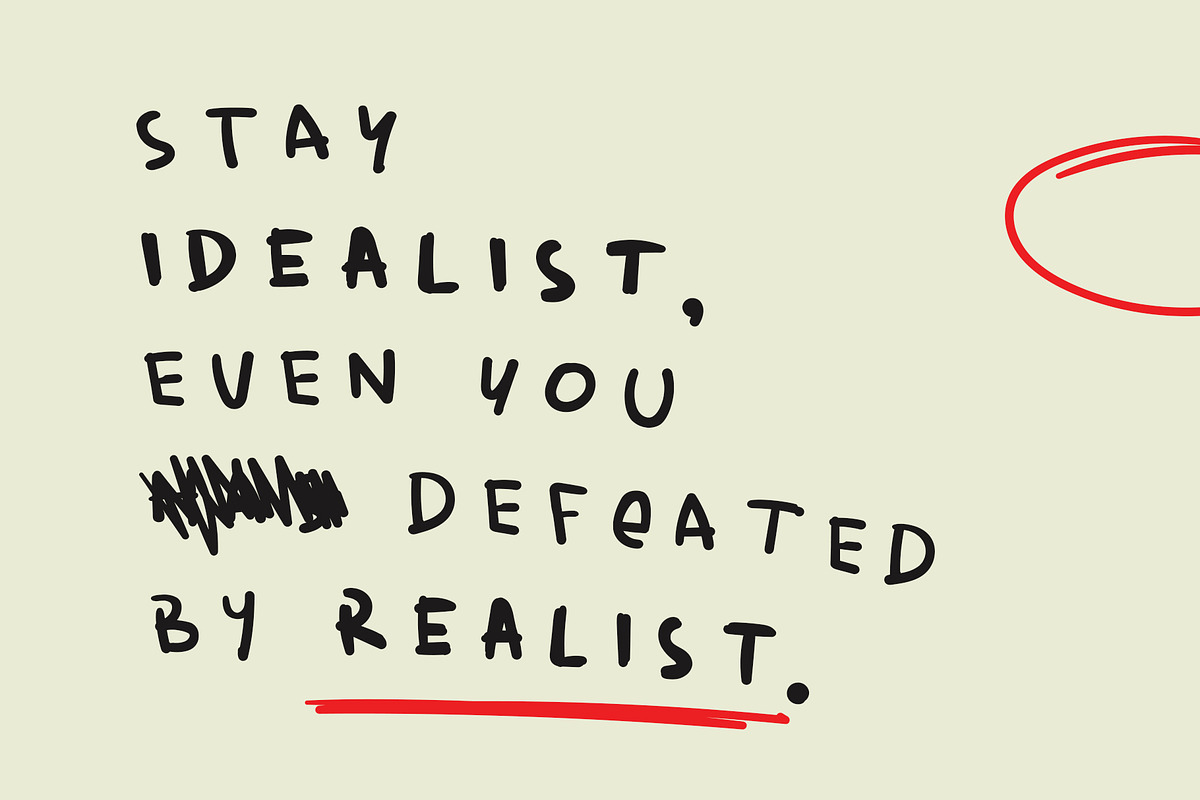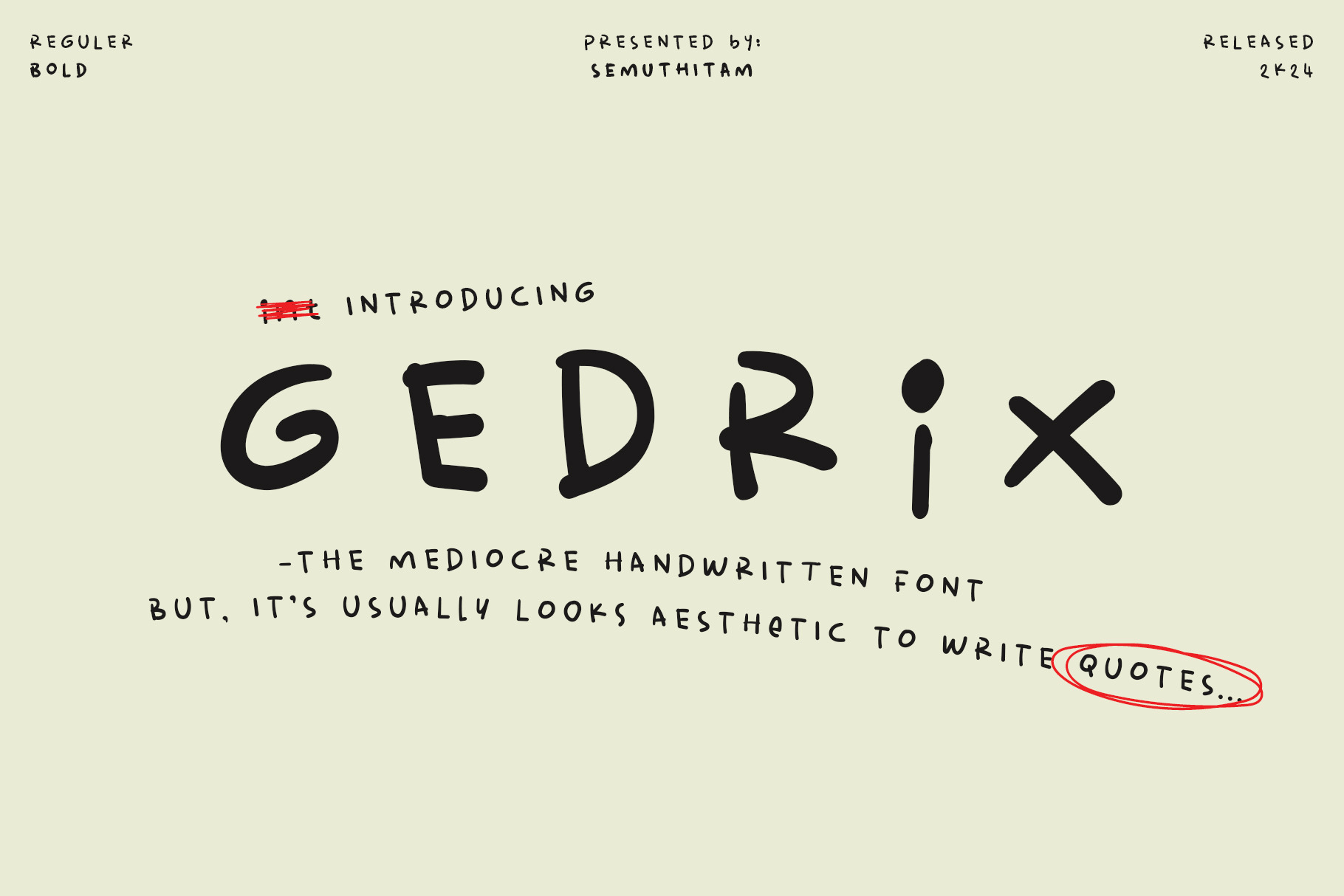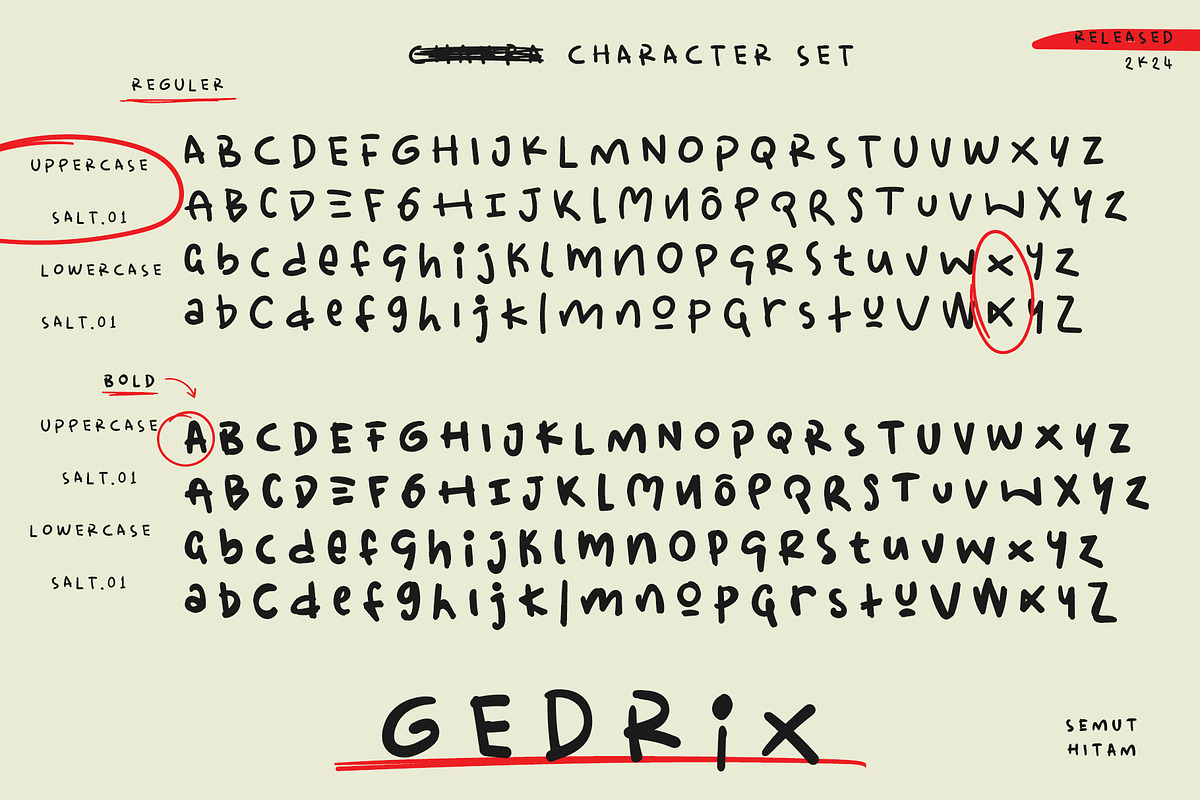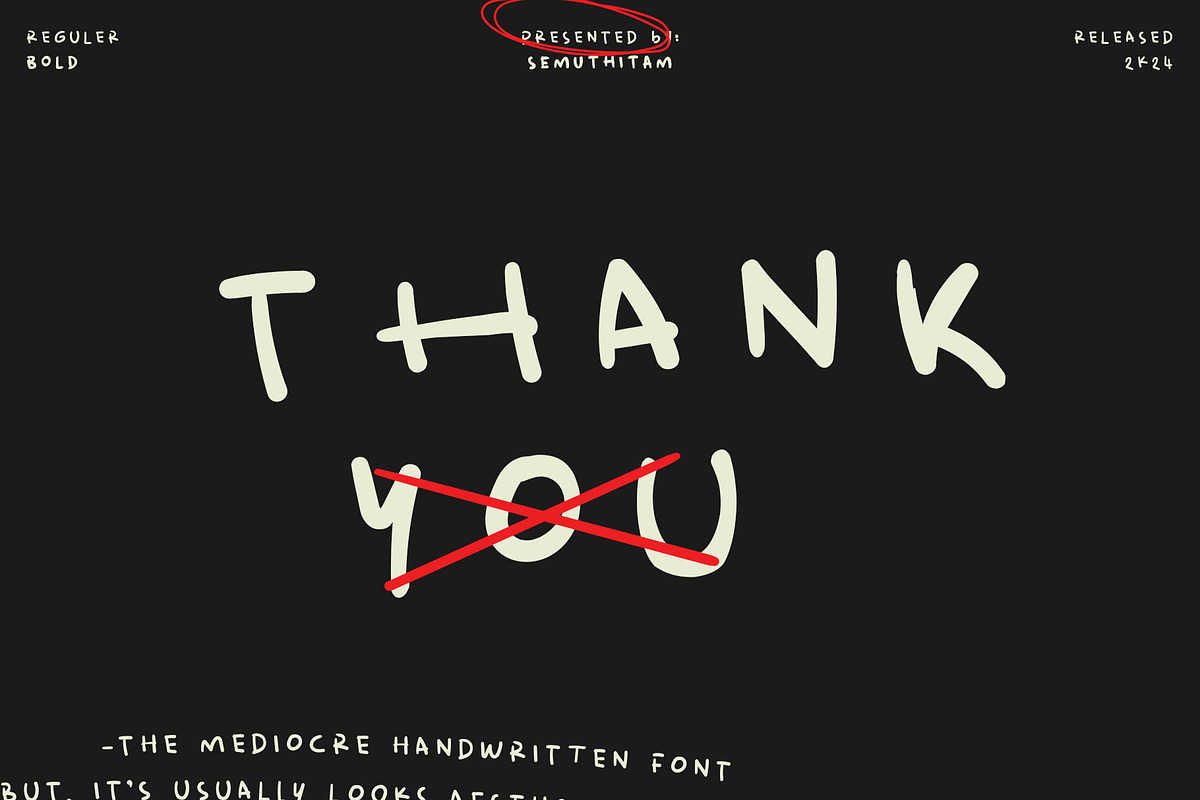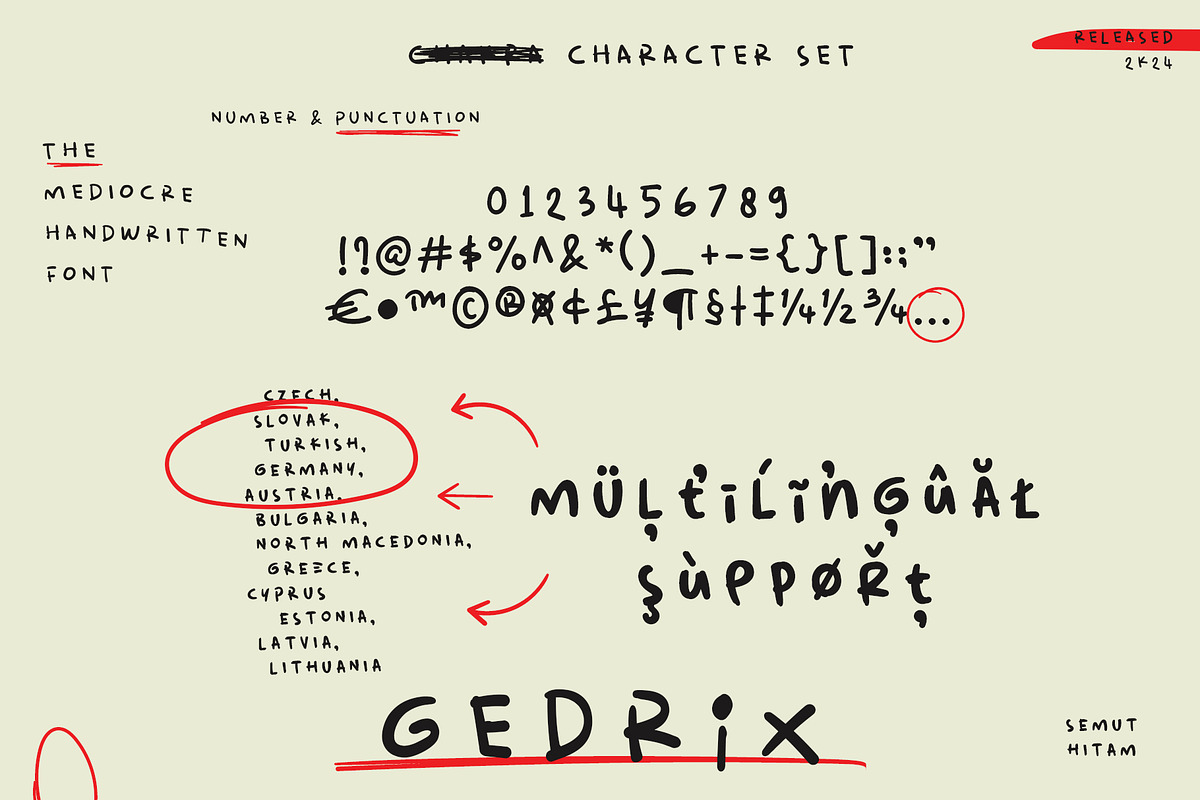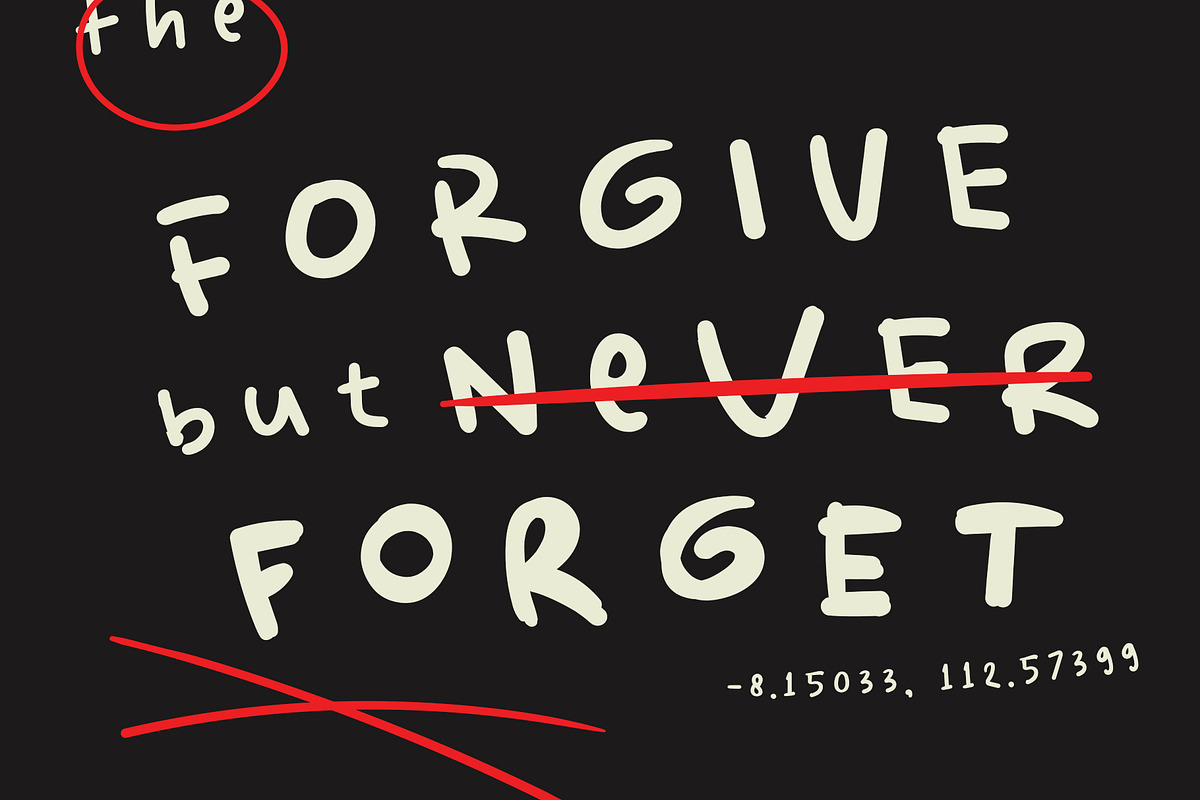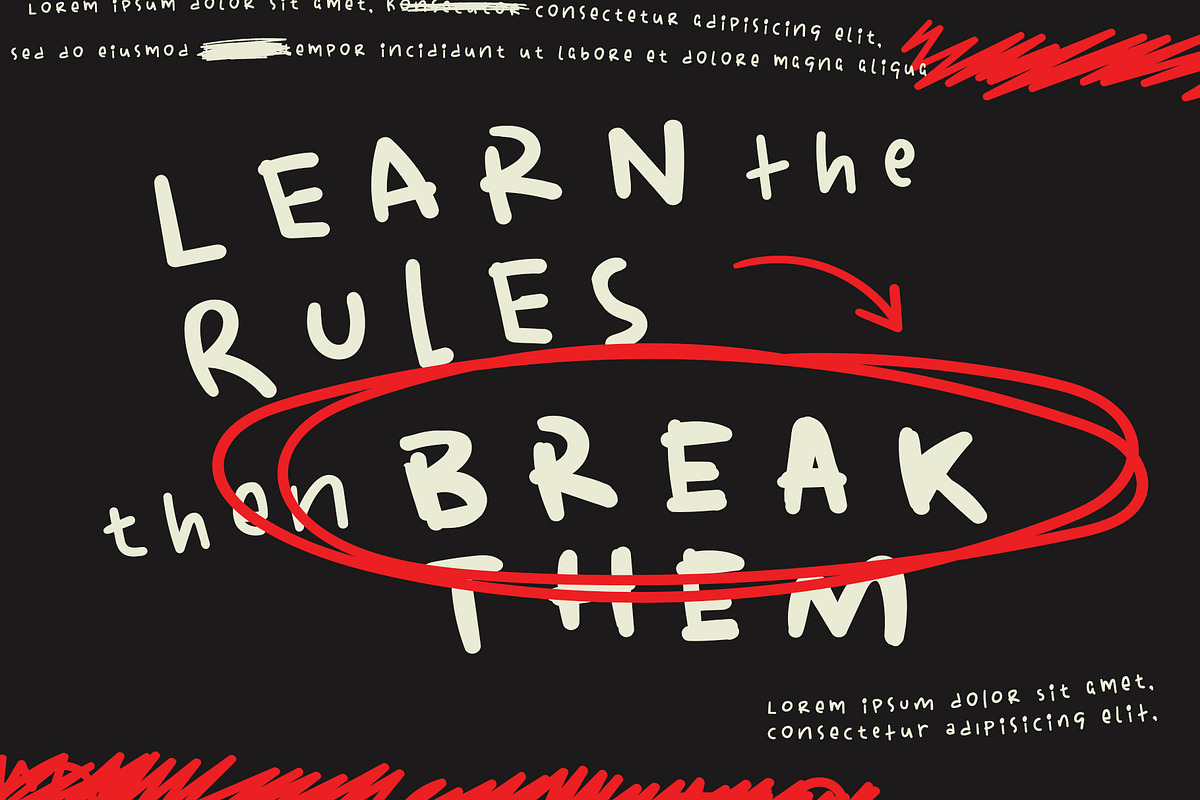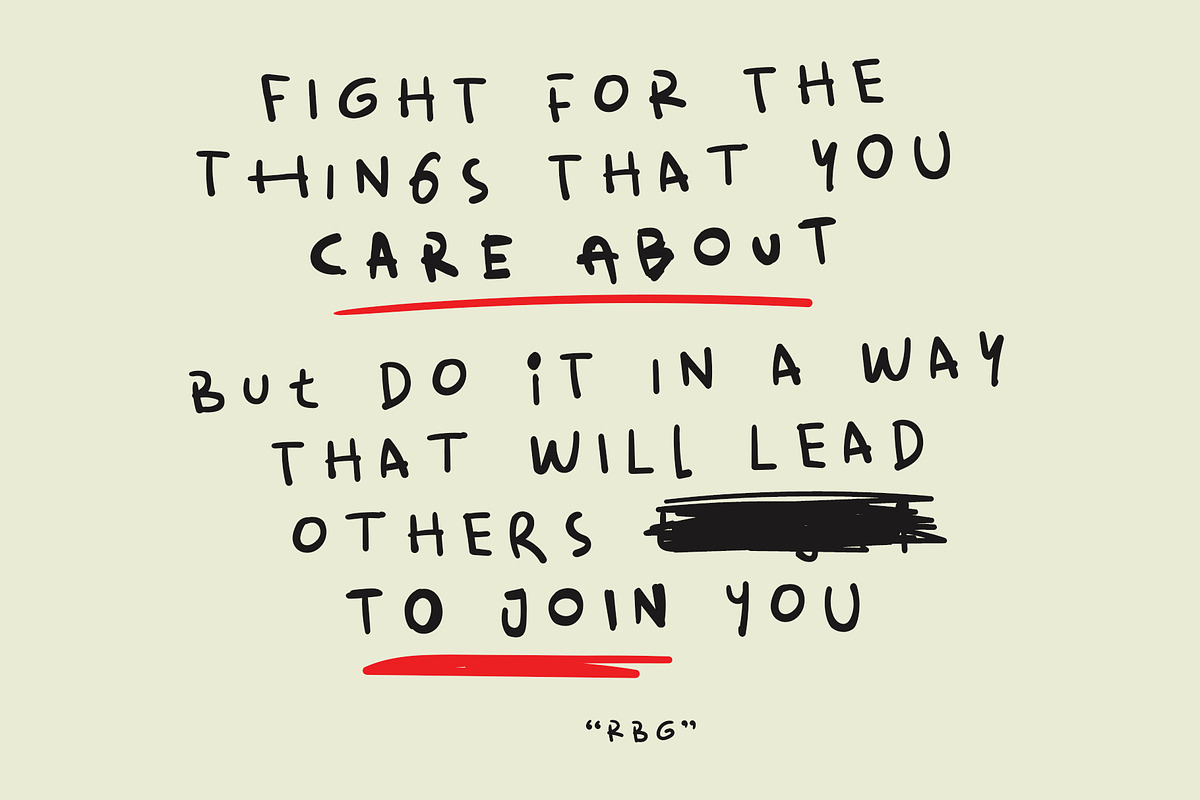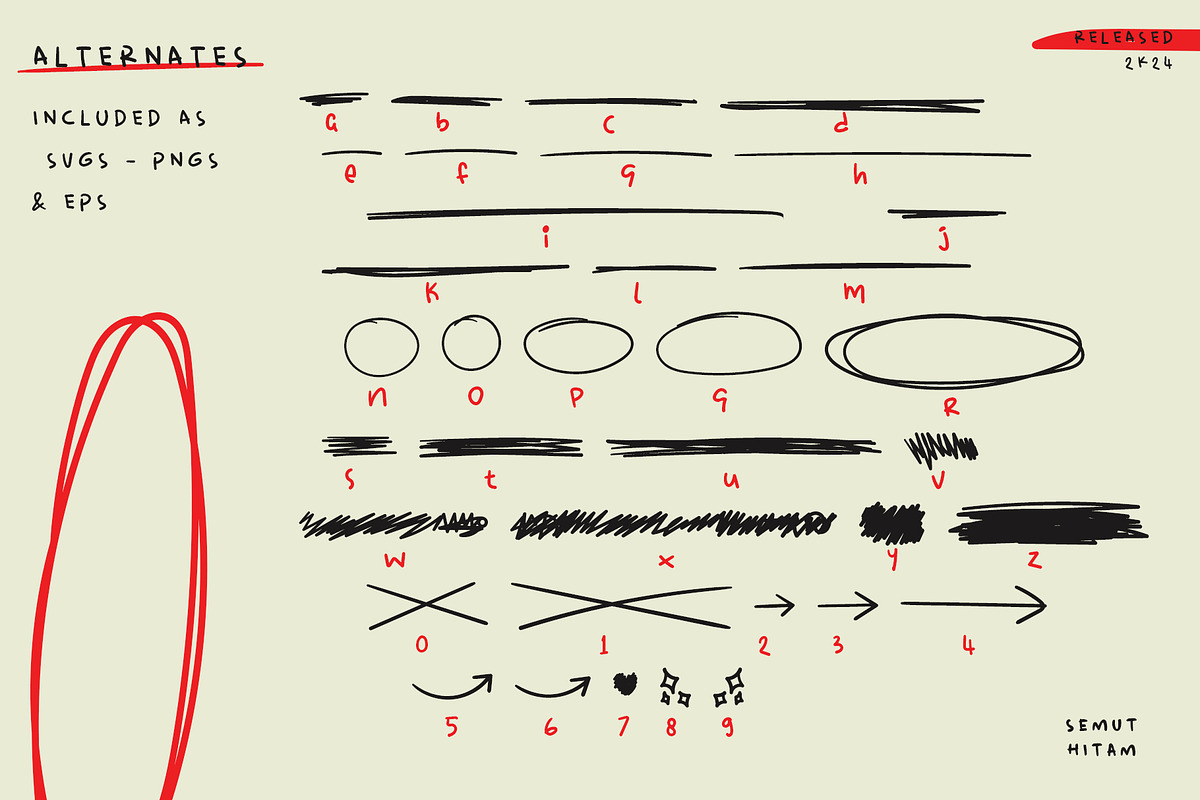
Gedrix - Mediocre Handwritten Font
Introducing my humble creation of an everyday script font, which while appearing to be just ordinary handwriting, signifies my digital creative footprint. This font captures the charm of natural, unrefined script which effortlessly enhances the aesthetics of your concepts. It is versatile, making it ideal for expressing emotive quotes, meticulously typed out novels, heartfelt poems or personal anecdotes. The simplicity and natural feel also make it perfect for your digital diary. The font features a complete suite of elements - liveliness of the uppercase, authenticity of lowercase letters, the distinctiveness of numbers, and the precision of punctuation. Adding to the uniqueness, it also supports multiple languages, fusing the nuances of diverse cultures into one distinctive style.